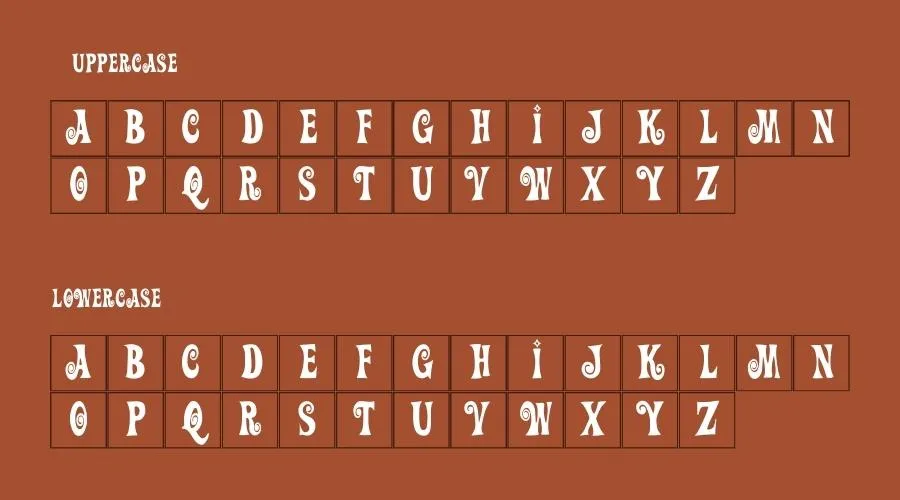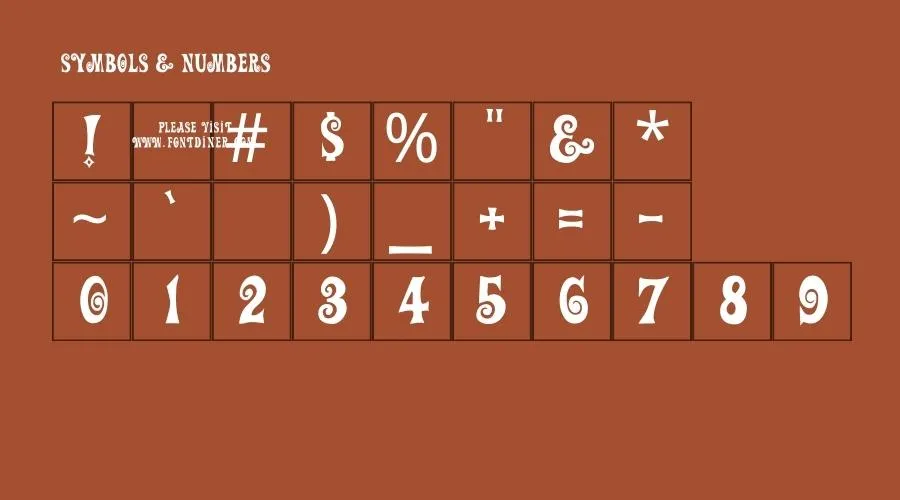
Action Is Font
In this post, going to share with you a very elegant and attractive Retro typeface family named Action Is Font. This font was invented by a well-known graphic designer named Brain Easters Font Co with multiple types of styles and weights such as Regular, bold, and italic.
The total glyph of this attractive typeface is 98. The character set of this typeface includes uppercase letters, lowercase letters, digits, symbols, and punctuations.
The Action Is Font is ideal for a range of procedures and has a variety of uses. This font can be used for a variety of things, including headings, titles, banners, printing, birthday cards, office cards, invitation cards, fabric designs, and social media posts.
This typeface is ideal for logos, headlines, packaging, and commercial advertisements because of its sophisticated appearance, which may be used to give a project importance.
This contemporary typeface can be used in promotions. This vintage font is suitable for book covers, group stages, and stage designs. It can also be used for wedding-related headings or titles, CSS site layouts, T-shirt designs, and jacket formats.
Name Action Is Font
Designer Brain Easters
Style Retro
• Action Is Regular
• Action Is Italic
What type of font is Action Is Font?
This typeface belongs to the category of the Retro typeface family with multiple types of styles and weights such as Regular, bold, and italic.
Who is the designer of Action Is Font?
This font was invented by a well-known graphic designer named Brain Easters Font Co.
Where can I utilize the Action Is Font?
You can utilize this typeface for making social media posts, banners, logo designs, newspapers, magazines, and much more projects.